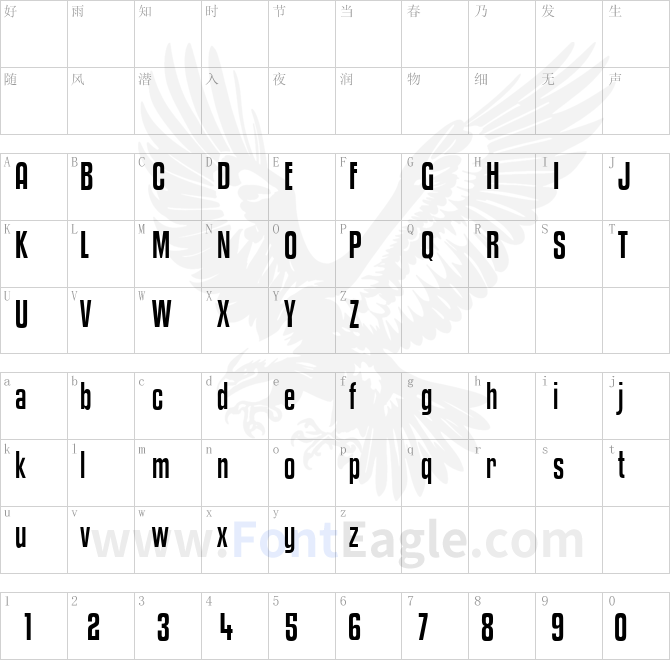
- Font name:Kenyan Coffee
- Font Subfamily ID:RayLarabie: Kenyan Coffee: 1999
- Font Full Name:Kenyan Coffee
- Font Version:Version 2.000 2004
- Postscript:KenyanCoffee